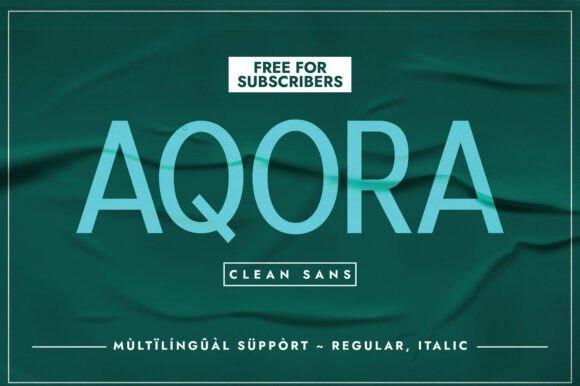
Discover the Power of Aqora Font
Have you ever stared at a blank canvas, feeling like your creativity is stuck in neutral? We’ve all been there. But what if I told you that the right font could be the spark that sets your ideas ablaze? For designers, finding the perfect font can be the difference between a good design and a great one.
Enter Aqora Font, a clean, minimalist, and condensed sans serif typeface that’s perfect for a wide range of design projects. From packaging design to web design, Aqora Font is the versatile tool you need to add depth and sophistication to your creative ideas. Its unique style makes it stand out from the crowd, and its value lies in its ability to elevate your designs to the next level.
Aqora Font Key Features
- Unique Character Set: Aqora Font features a unique character set that includes a wide range of symbols, icons, and glyphs, making it an ideal choice for designers and artists who require a high level of customization.
- High-Quality Typography: The font is designed to provide exceptional readability and legibility, with carefully crafted letterforms and spacing to ensure that text is easy to read and understand.
- Multi-Lingual Support: Aqora Font supports multiple languages, including English, Spanish, French, German, Italian, Portuguese, and many others, making it a versatile choice for designers and artists working on international projects.
- Customizable: The font is highly customizable, with a wide range of options for adjusting font size, color, and style to suit the needs of individual designers and artists.
Aqora Font Review
First off, let me say that Aqora Font is a visually appealing and modern sans-serif font. It works well ✨ for digital products, web applications, and even print materials. The font’s clean lines and geometric shapes make it perfect for creating a sleek and professional look. I particularly like how it performs on smaller screens and in digital environments.
However, there are a few limitations to consider ⚠️. One of the main issues is that Aqora Font can feel a bit cold and unapproachable, which might not be suitable for certain projects or audiences. Additionally, the font’s lack of bold weight options can make it difficult to use for headings or titles, especially in print materials. Lastly, the font’s limited language support might be a concern for global projects.
- Modern and sleek design
- Works well in digital environments
- Perfect for professional and corporate projects
- Lack of bold weight options
- Limited language support
- Can feel cold and unapproachable
Overall, I think Aqora Font is a solid choice for projects that require a modern and professional look. However, it’s essential to consider the potential limitations and ensure that the font aligns with your project’s goals and audience.
Getting the Most Out of Aqora Font
To get the most out of the Aqora font, use it for:
- Creatives and artistic projects
- Emphasizing important information
Aqora font is commonly used in:
- Graphic design projects
- Branding and identity design
Alternatives to Aqora Font
Monserrat is a sans-serif font designed by Julieta Ulanovsky. It is a great choice for designers who want a clean and modern look. Montserrat is more geometric and has a more angular feel compared to Aqora Font, making it perfect for headings and titles.
Comparison: Montserrat has a more aggressive feel and is more suitable for digital applications, whereas Aqora Font has a softer and more rounded feel, making it perfect for print materials.
Open Sans is a popular sans-serif font designed by Steve Matteson. It is a great choice for designers who want a clean and versatile font. Open Sans is more rounded and has a friendly feel compared to Aqora Font, making it perfect for body text and digital applications.